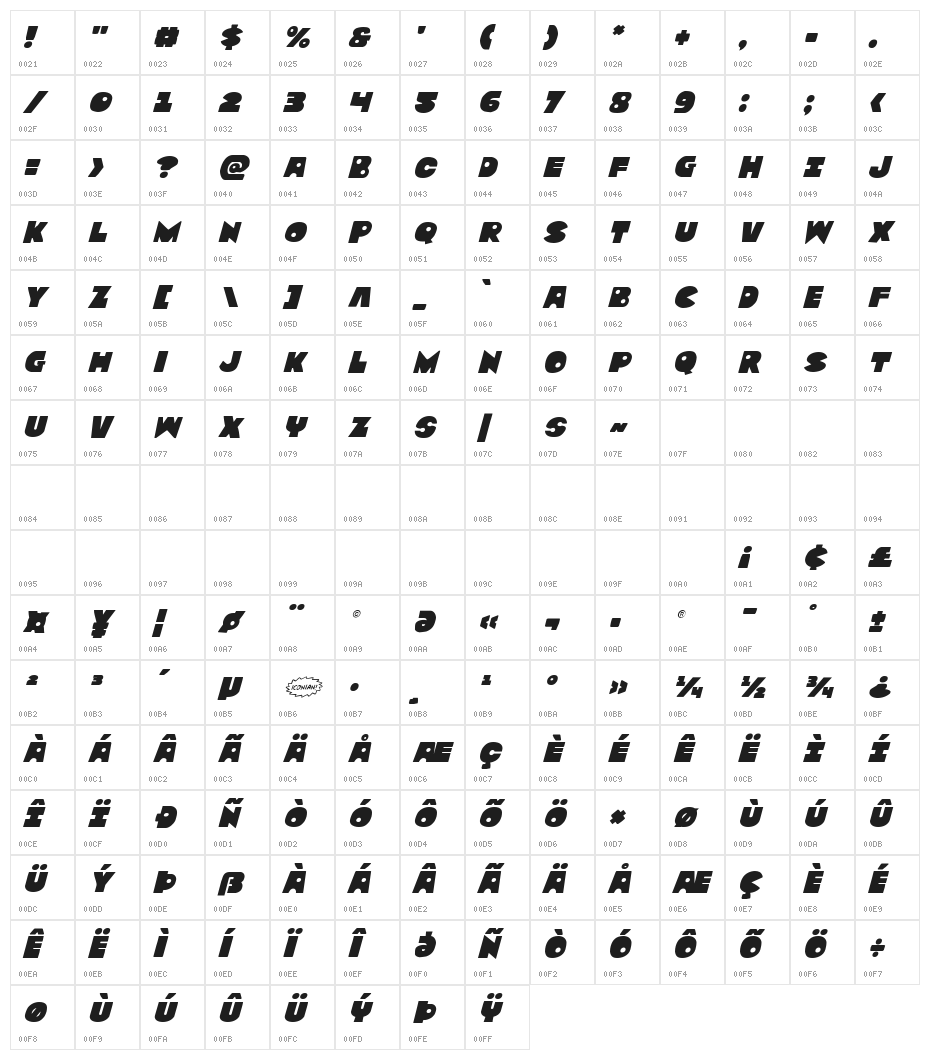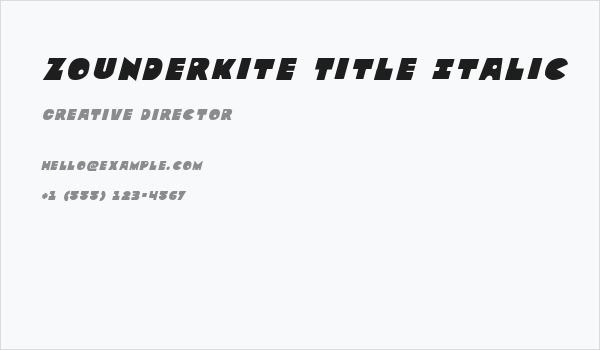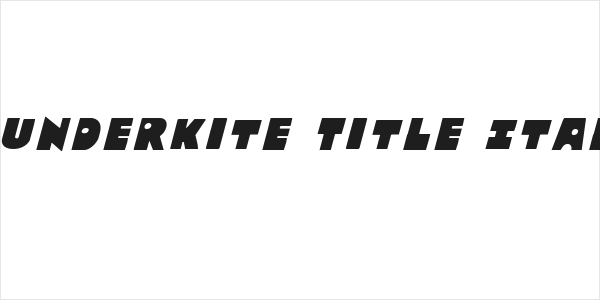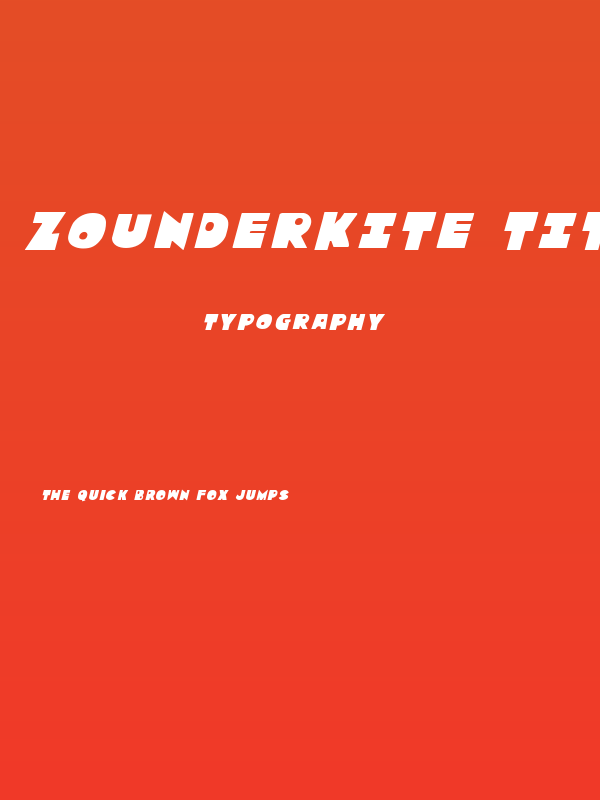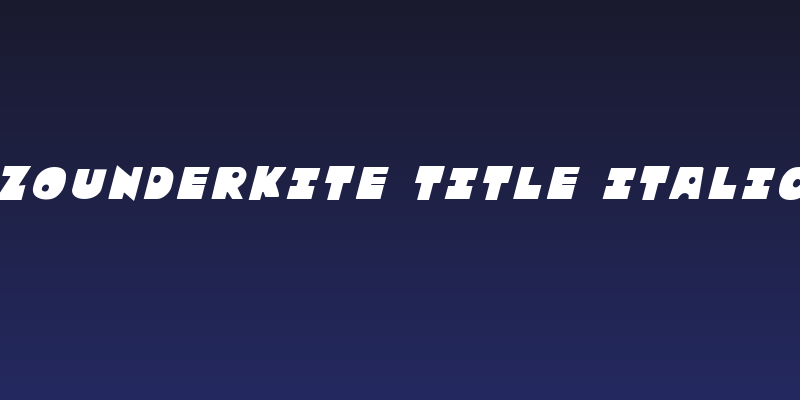
Zounderkite Title Italic Font
Zounderkite Title Italic Description
This font features a bold and dynamic style with a strong italic slant, giving it a sense of motion and energy. The characters are thick and robust, with a slightly condensed appearance that enhances their impact. The design includes unique geometric elements, such as angled cuts and curves, which add a modern and playful touch. The uppercase and lowercase letters maintain a consistent style, ensuring readability while still being visually striking. The numbers and special characters are equally bold, making them stand out effectively. This font is ideal for projects that require a bold statement and a contemporary flair.
| Proposed Projects | Ideal for branding, headlines, posters, and any design needing a bold, energetic look. |